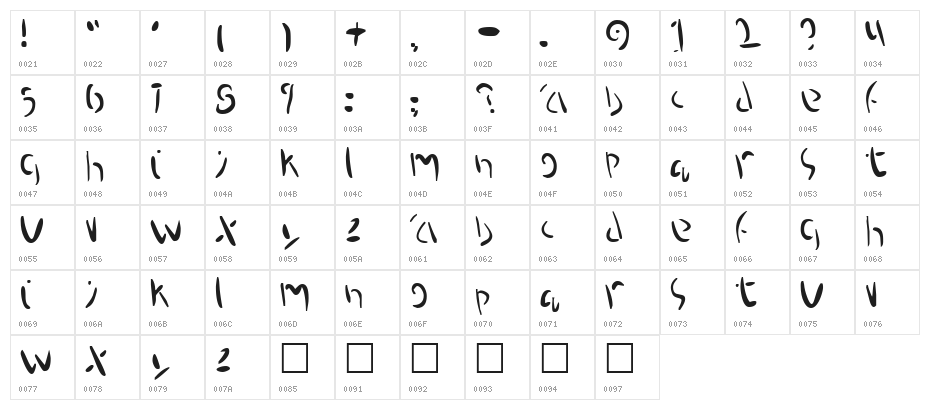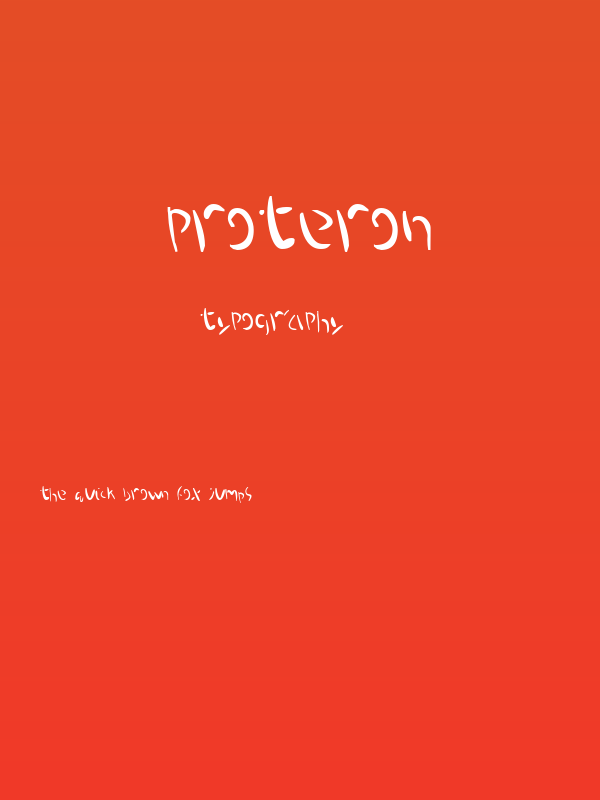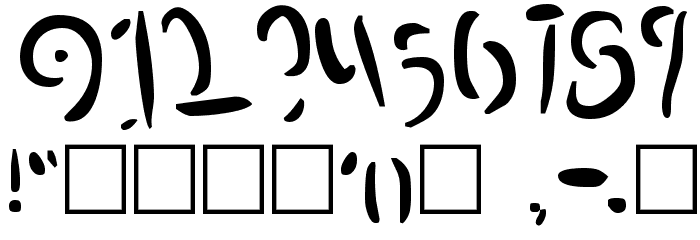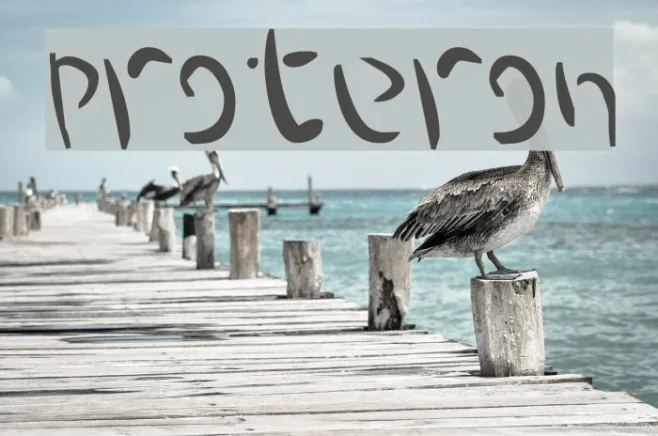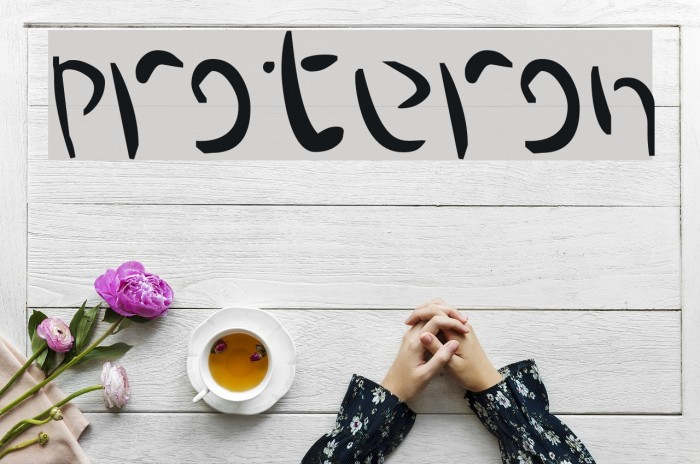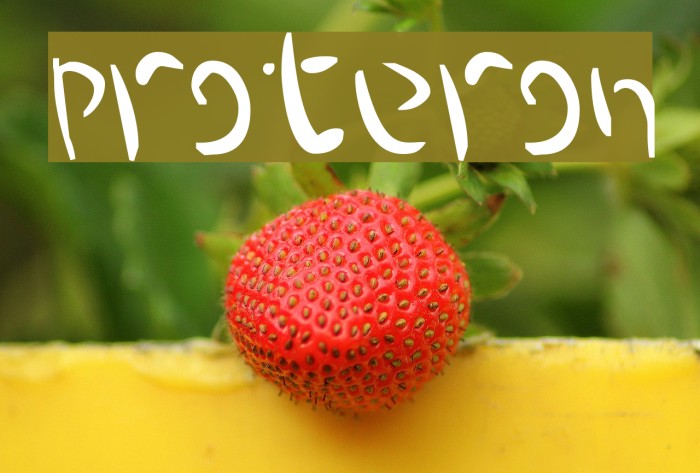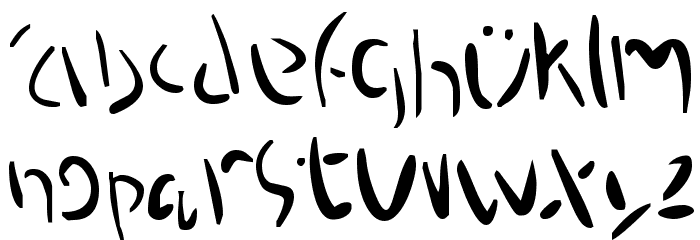
Proteron Font
Proteron Description
This font features a unique and artistic style with a calligraphic influence, characterized by its fluid and curvilinear forms. The letters exhibit a playful and whimsical quality, with strokes that vary in thickness, creating a dynamic and lively appearance. The uppercase and lowercase letters maintain a consistent style, while the numerals and special characters integrate seamlessly with the overall design. The font's distinctiveness lies in its organic shapes and the way each character flows into the next, making it ideal for creative and expressive projects.
| Overall Style | Artistic, Whimsical |
| Use Case | Logos, Invitations, Artistic Projects |
| Proposed Projects | Ideal for artistic projects, creative branding, invitations, and expressive designs. |